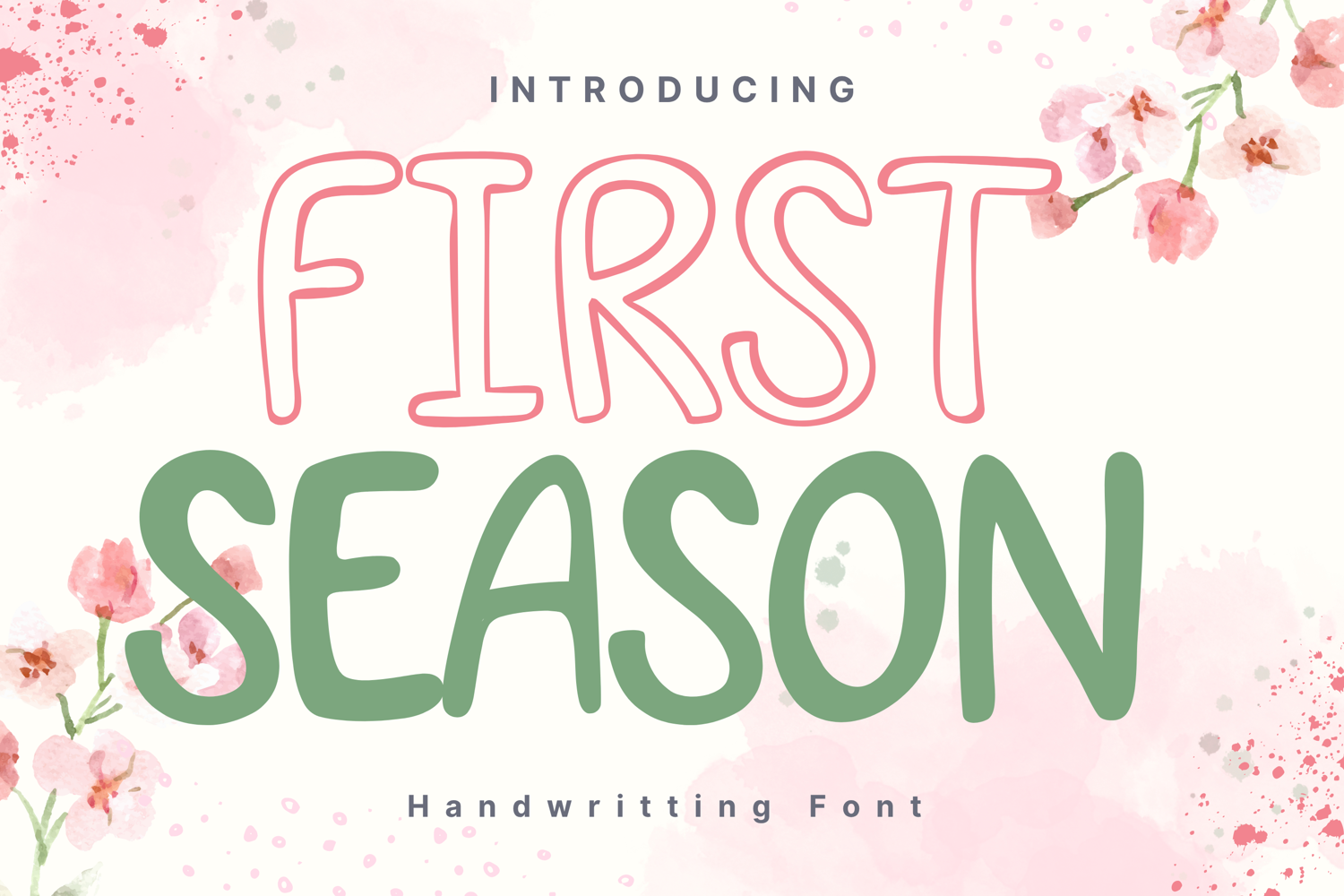
First Season Style
First Season is a fresh, cheerful handwritten font inspired by the beauty and softness of spring. It features playful letterforms with a clean yet organic feel, giving off a warm and welcoming vibe. The mix of outline and filled styles adds contrast and charm, making it ideal for seasonal projects, children’s books, garden invites, greeting cards, and spring-themed branding. Decorated with floral accents and soft watercolor splashes, this font perfectly captures the essence of blossoming beginnings.